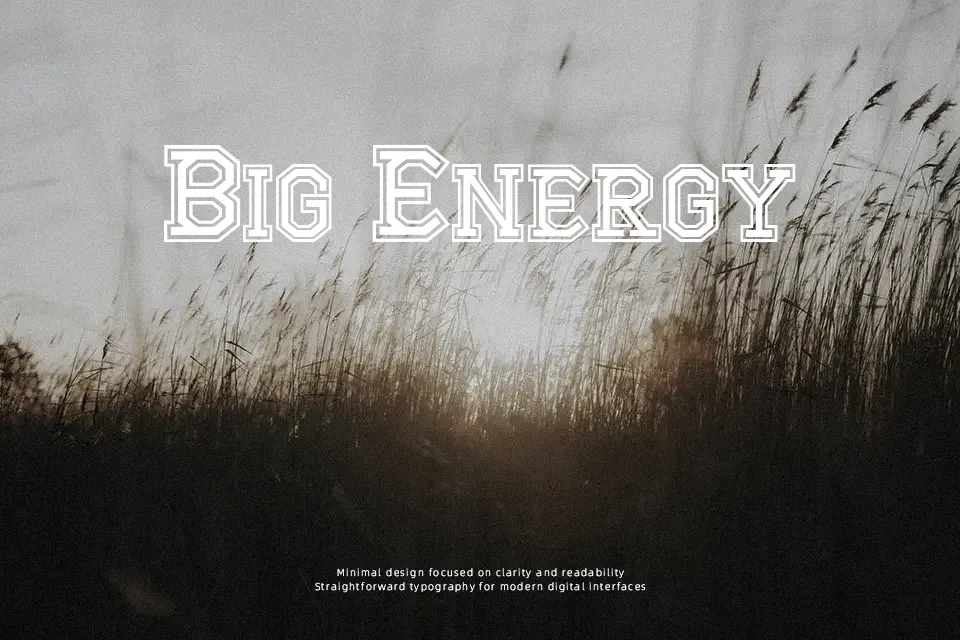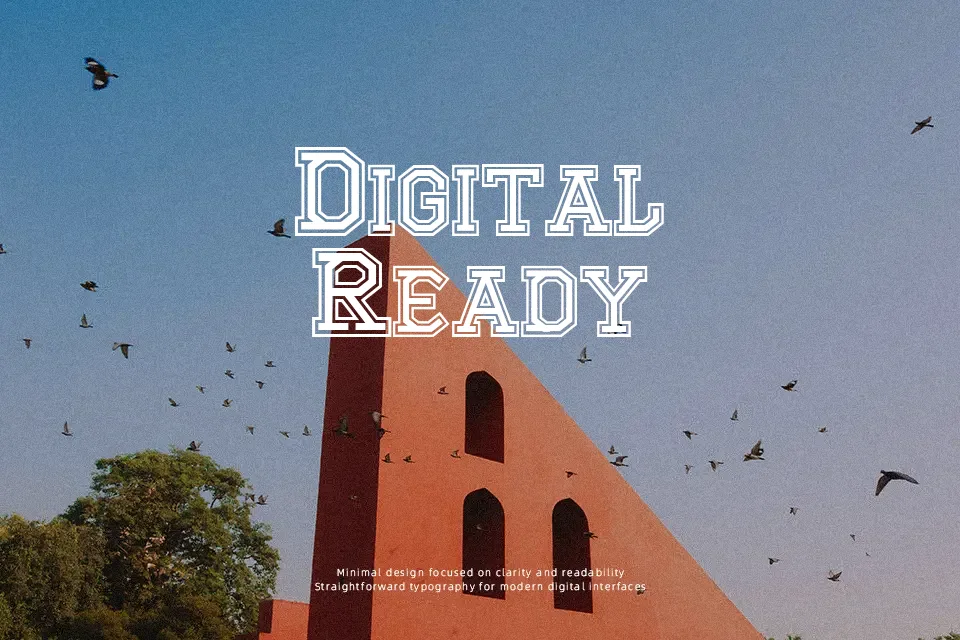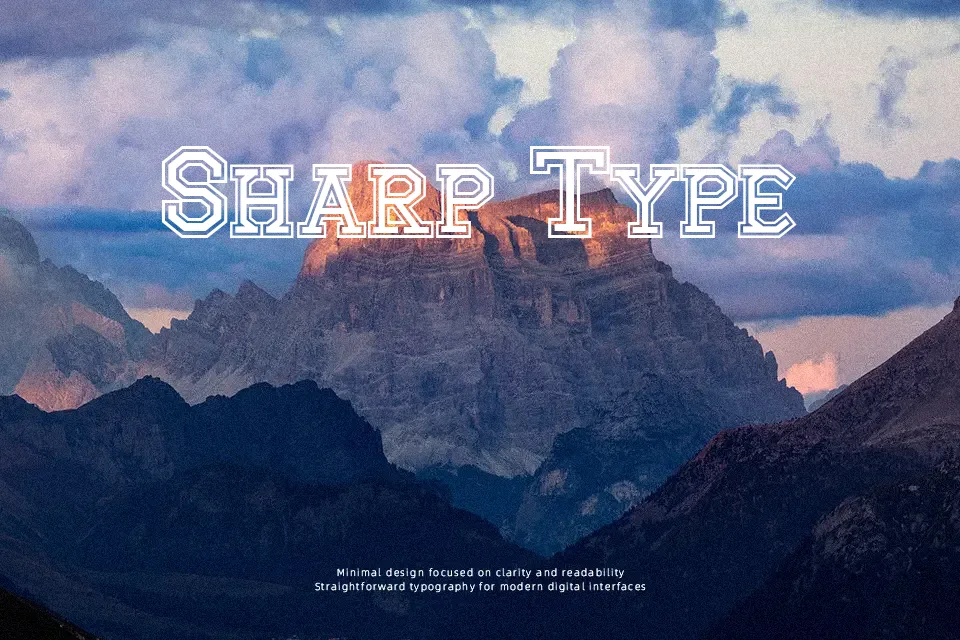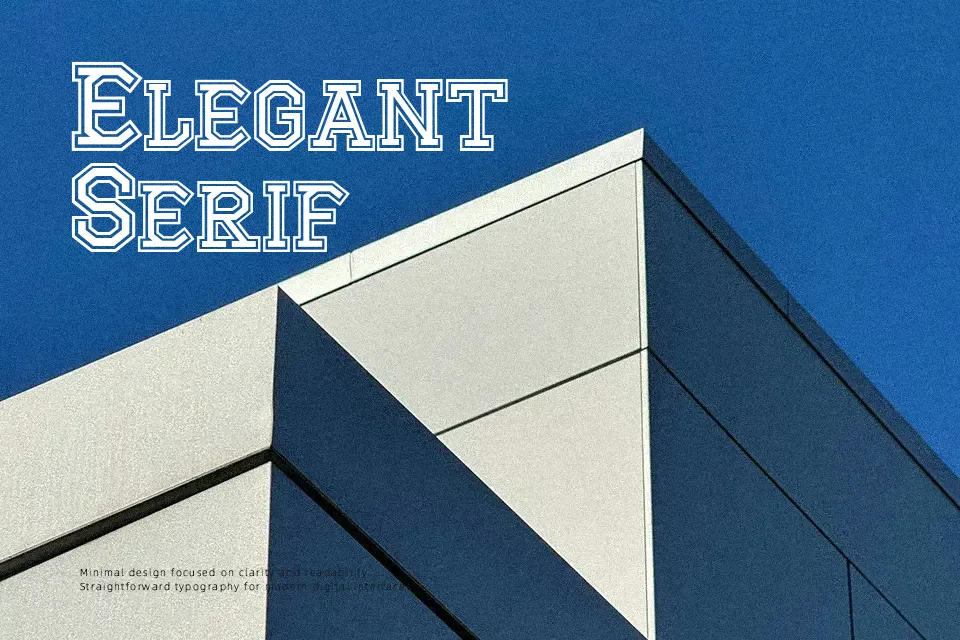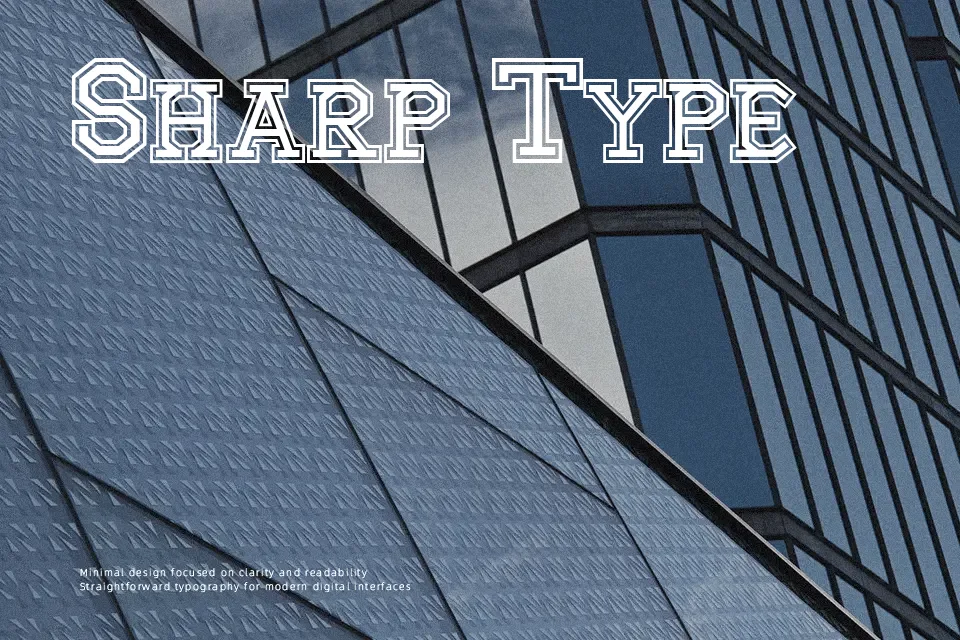
CF Montreal High School Font
Designed by Cloutierfontes
CF Montreal High School Font is built around heavy, squared-off block letterforms that showcase distinct chamfered corners and sturdy slab serifs. The glyphs exhibit low stroke contrast, wide horizontal proportions, and structured spacing engineered to maintain legibility in oversized applications. This design excels in athletic uniform numbering, campus club merchandise, and bold tournament posters. However, the thick stroke weight and compact interior counters reduce reading comfort across multi-line editorial layouts. In practical evaluation, the typeface maintains exceptional distance visibility when rendered in capital letters, though small caption sizes quickly cause dense terminals to merge.
athletic jersey lettering
collegiate sports posters
varsity club apparel
championship event banners
long body paragraphs
small mobile interface text
dense editorial articles
legal disclaimer text
Perfect for branding, fashion, and headline, with a bold and display style.